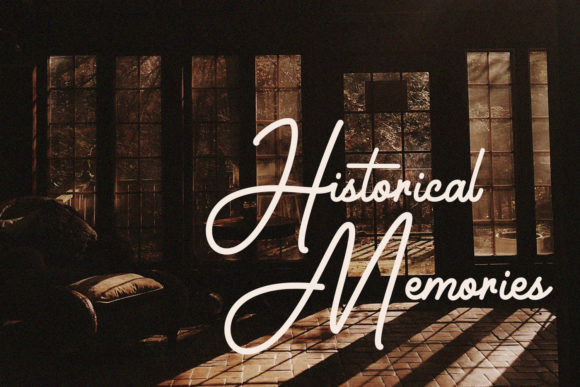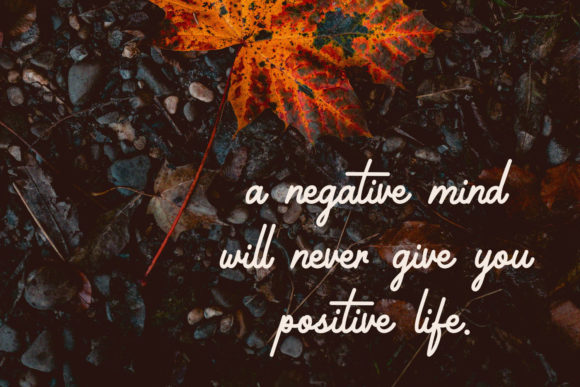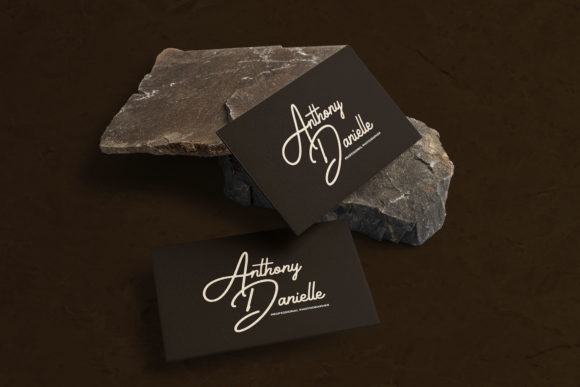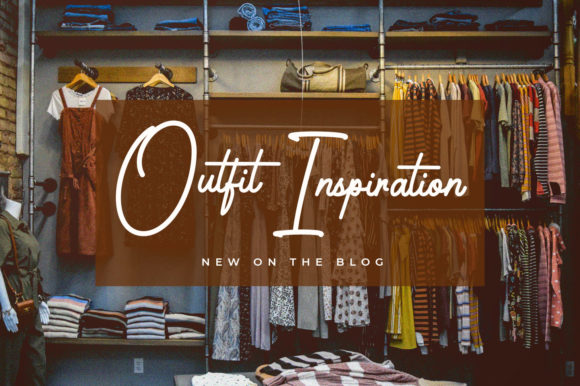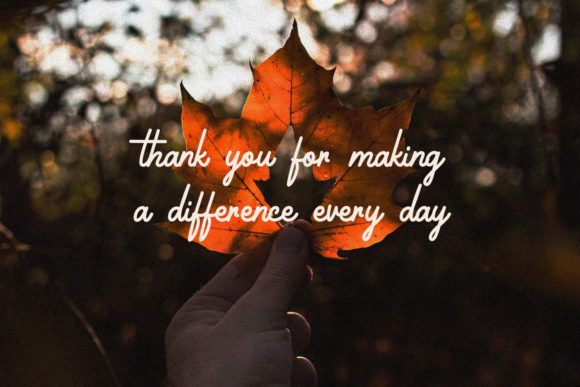
Introduction to Brooklyn Makayla Font Font
Fonts play a crucial role in design, and the Brooklyn Makayla Font font is a typeface that brings both character and versatility to any project. Whether you’re working on a branding project, a website, or a print design, the Brooklyn Makayla Font font offers a unique style that can elevate your work.
Brooklyn Makayla is a delicate and well balanced script font.
It is suitable for logos, stationery art, quotes, book covers, magazines, branding, and much more Add it to your most unique ideas to make them stand out.
Key Features of Brooklyn Makayla Font Font
Why Choose Brooklyn Makayla Font Font?
The Brooklyn Makayla Font font is more than just a typeface – it’s a design tool that helps you communicate your message with style and clarity. Its unique character set and versatile design make it suitable for a wide range of applications, from elegant invitations to bold headlines.
With its carefully crafted letterforms and balanced proportions, the Brooklyn Makayla Font font ensures readability and visual appeal across all mediums.
What makes Brooklyn Makayla Font font special?
The Brooklyn Makayla Font font stands out with its unique design, exceptional readability, and versatility across various design applications.